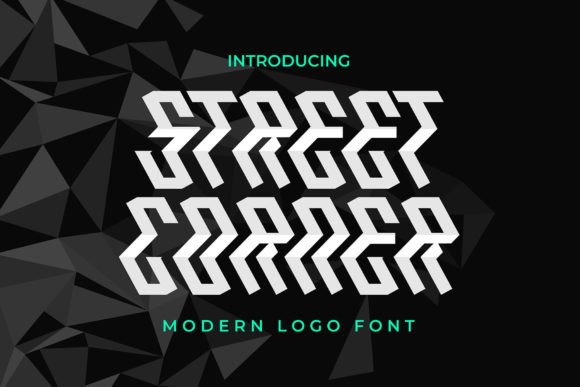
Prepare yourself to experience the future of typography with Street Corner, the display font that embodies the essence of speed and innovation. Inspired by the adrenaline-pumping world of sports, this font captures the dynamic energy of racing and the sleek futurism of athletic gear.
Street Corner's clean lines and sharp angles evoke a sense of swiftness and precision, making it the perfect choice for projects that demand a modern and impactful look. Its versatility extends from sports jerseys to athletic shoes, helmets, and beyond, ensuring that your designs will stand out from the crowd.
With Street Corner, you have the power to create a brand identity that exudes the spirit of competition and the limitless possibilities of tomorrow. Whether you're a designer crafting a new sports team logo or an entrepreneur launching an innovative athletic product, this font will propel your creations to the forefront of style and innovation.
Immerse yourself in the world of Street Corner and unleash the boundless energy of your designs. Its sleek modernity and captivating dynamism will ignite your imagination and drive your projects to the finish line of success.